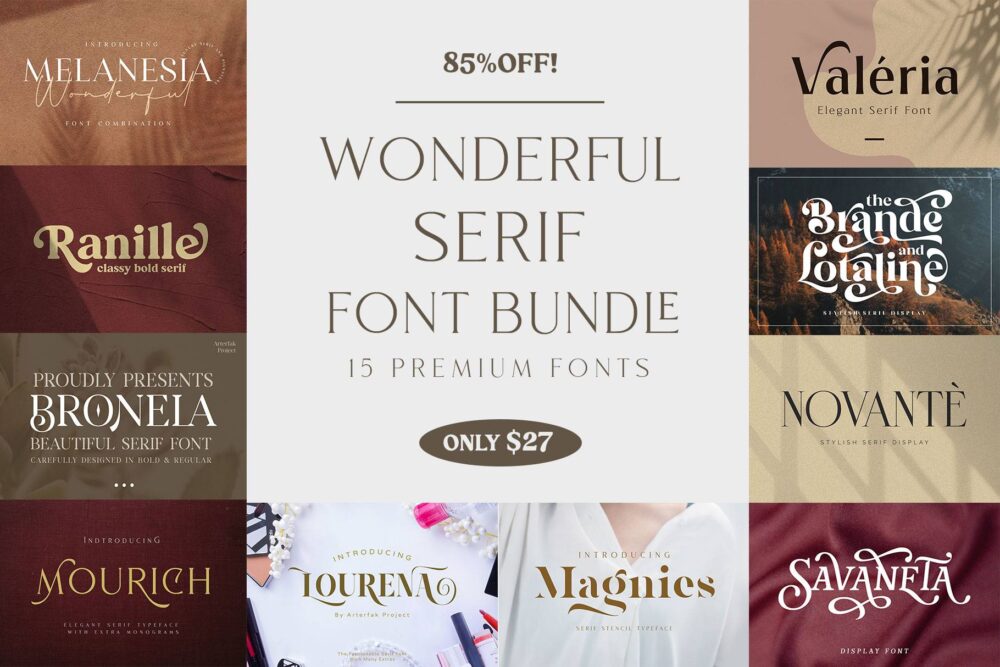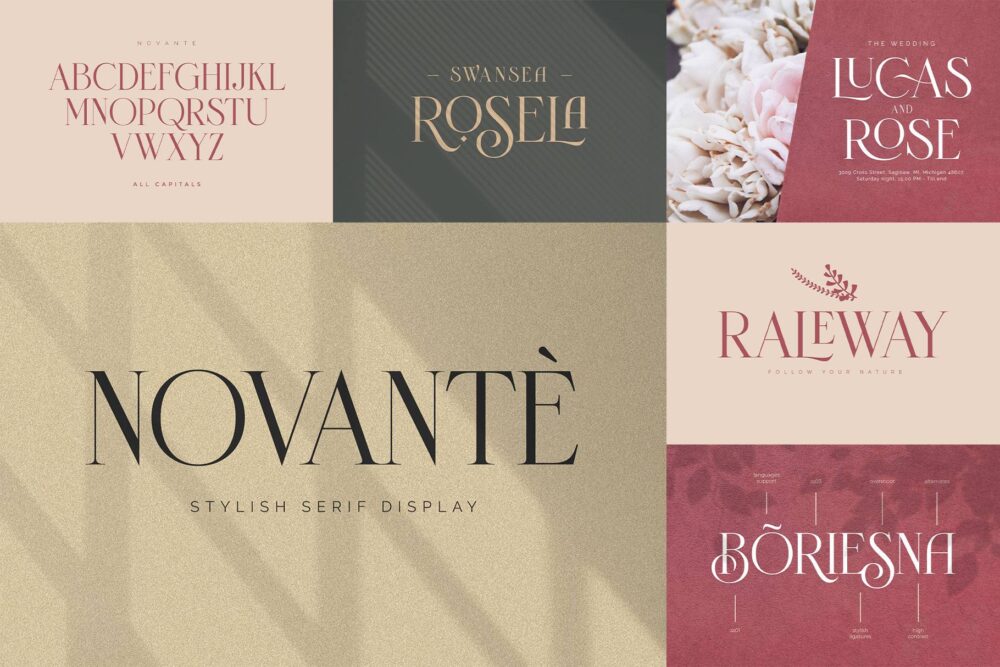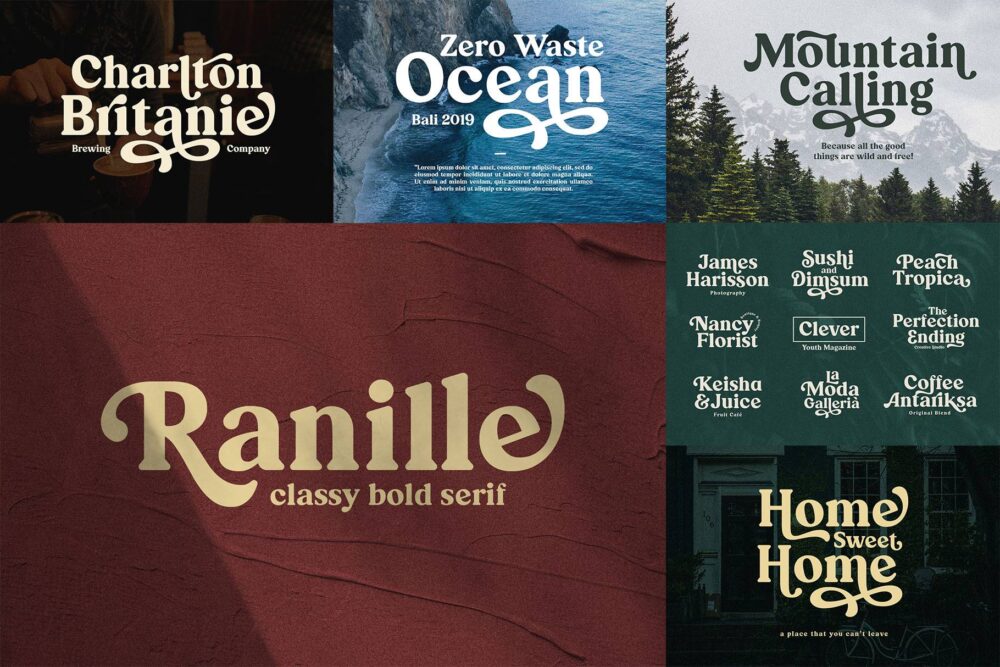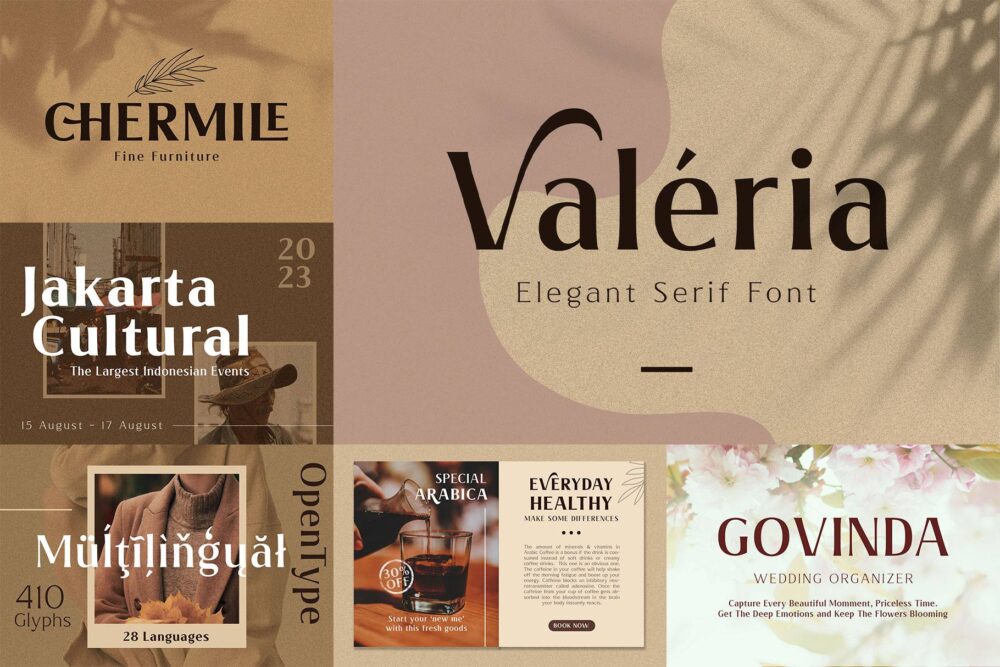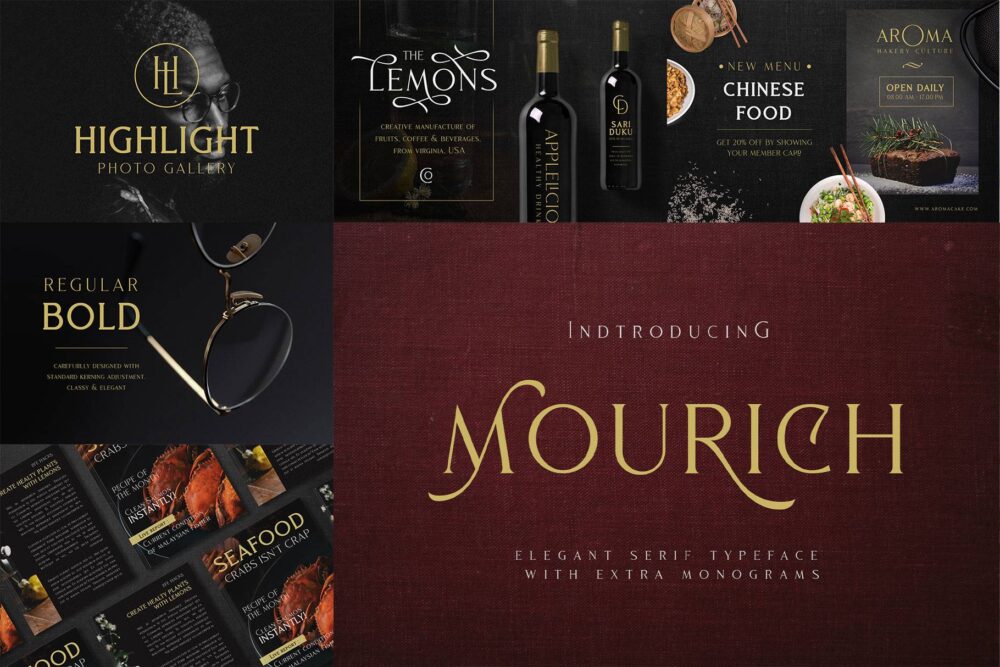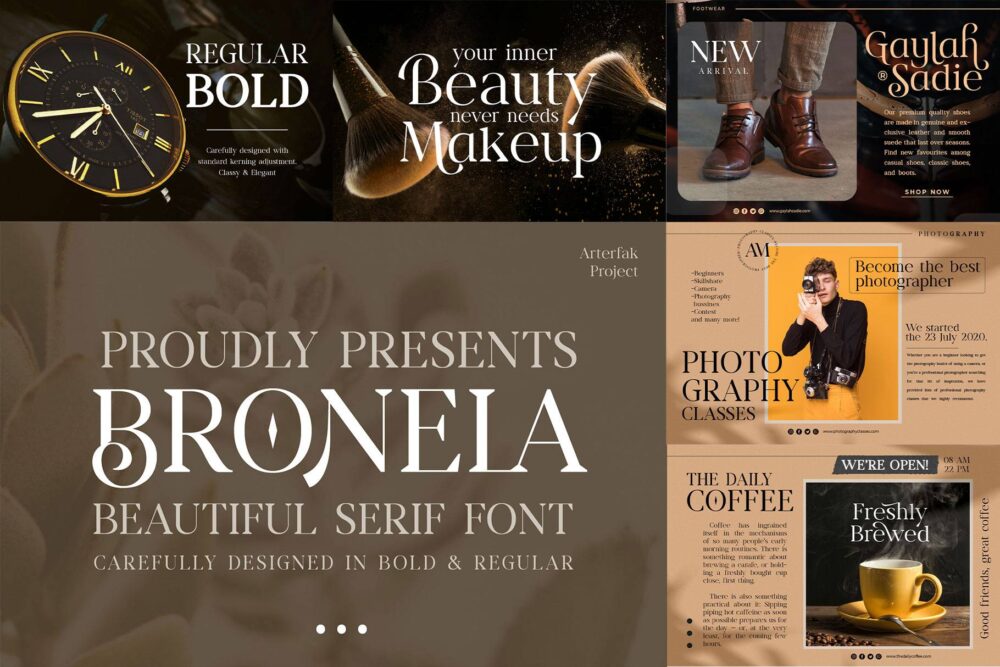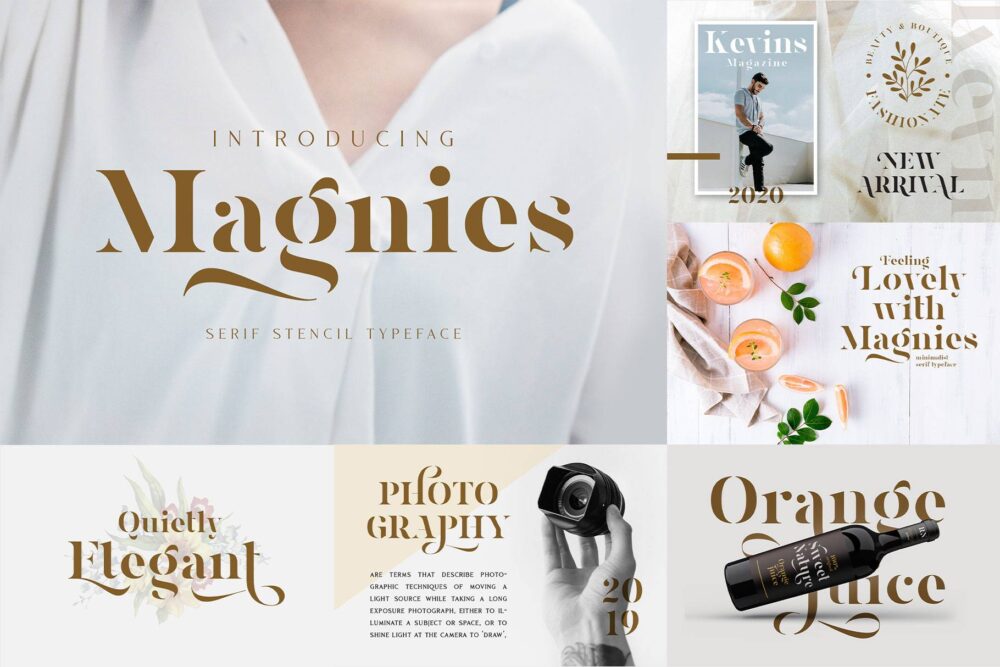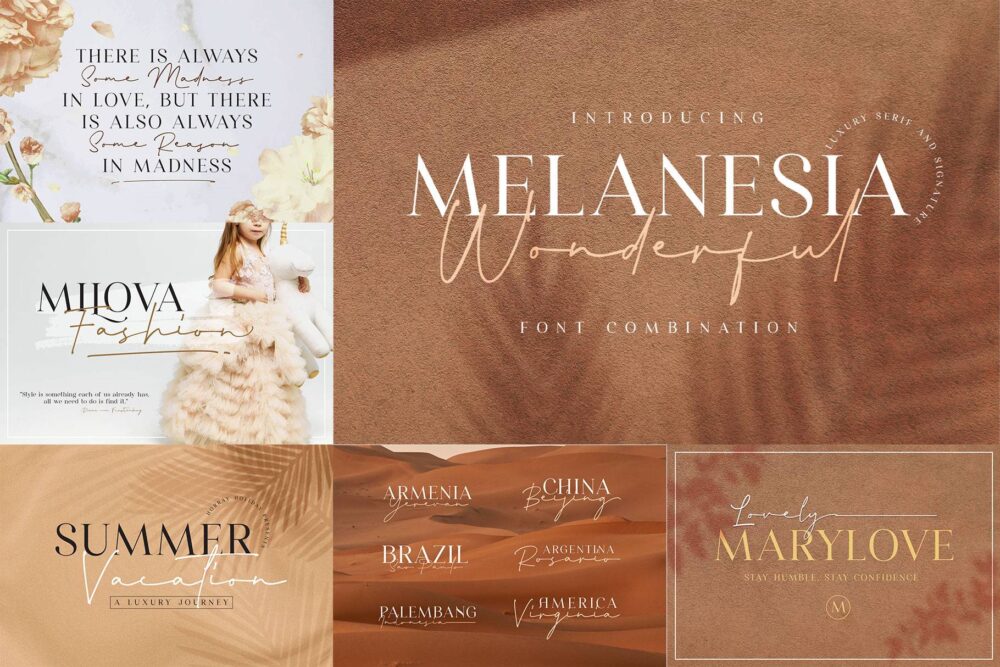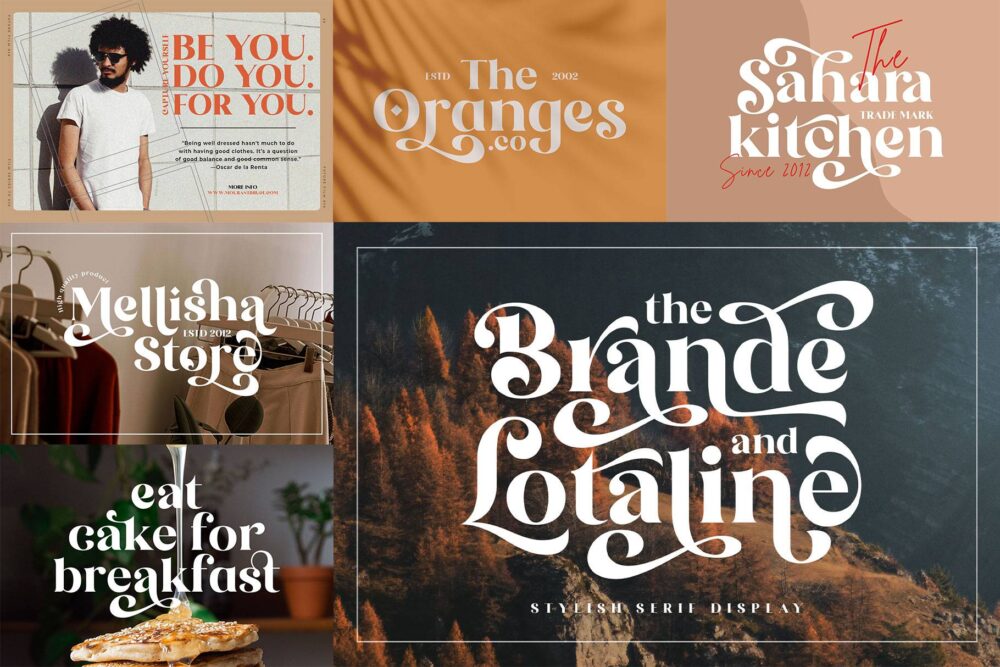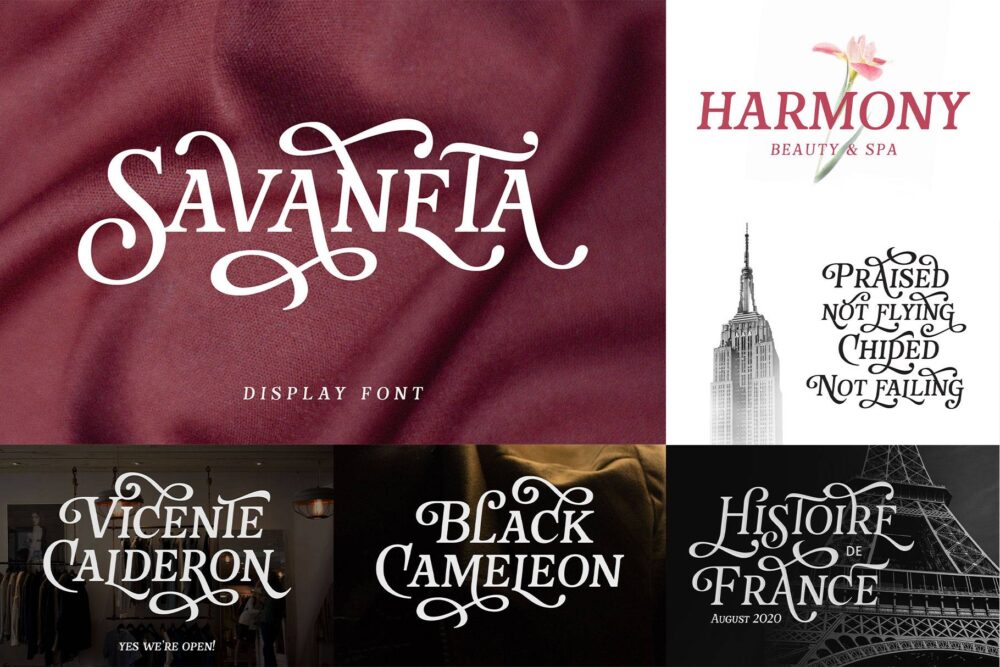
Introducing “Wonderful Serif Font Bundle”, Selected from the same feels of serif fonts, from various themes, and styles. There are feminine styles, masculine, casual styles, minimalist, organic, and calligraphic styles that ease your design projects. Packed including the OpenType features such as stylistic alternates, ligatures, and multilingual characters.
Fonts included :